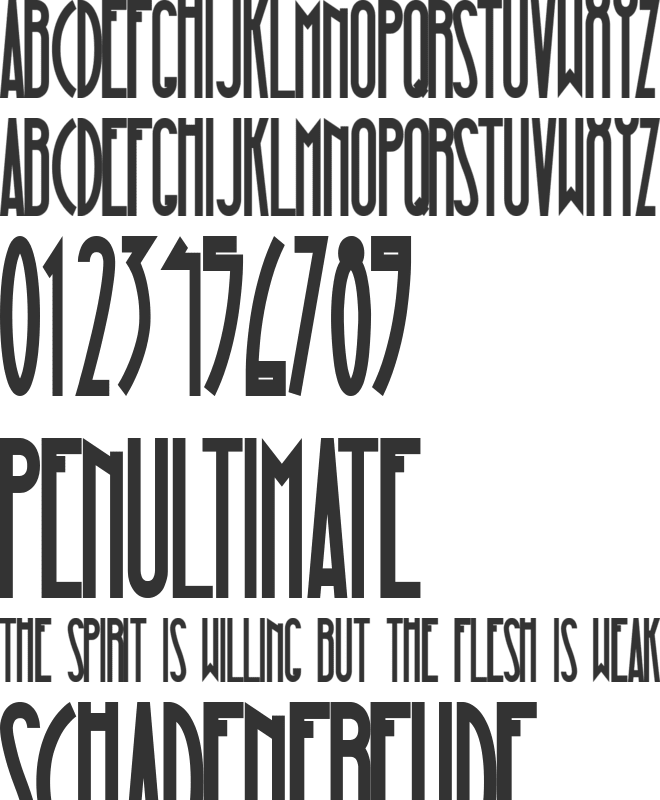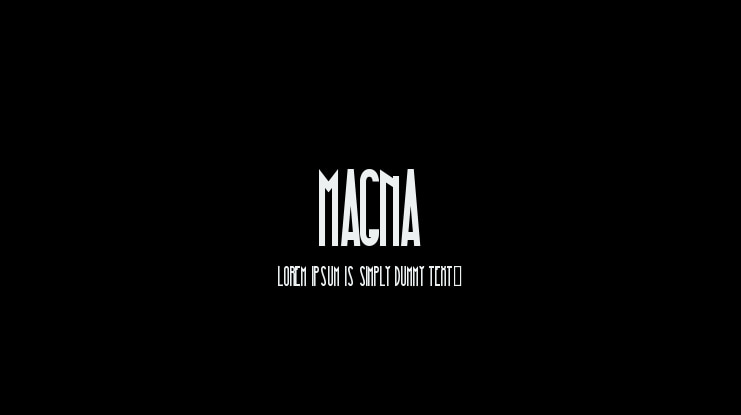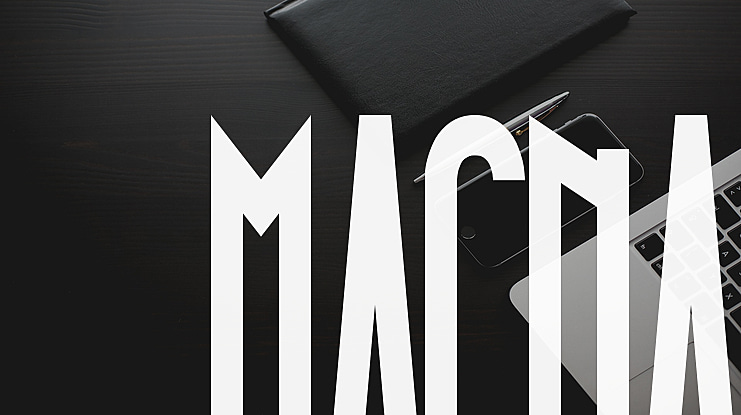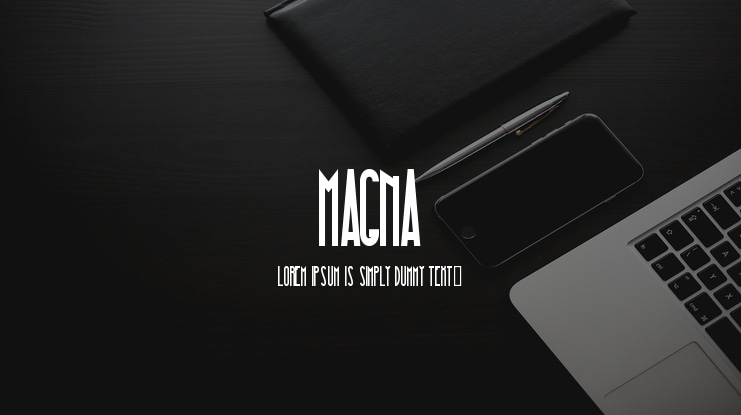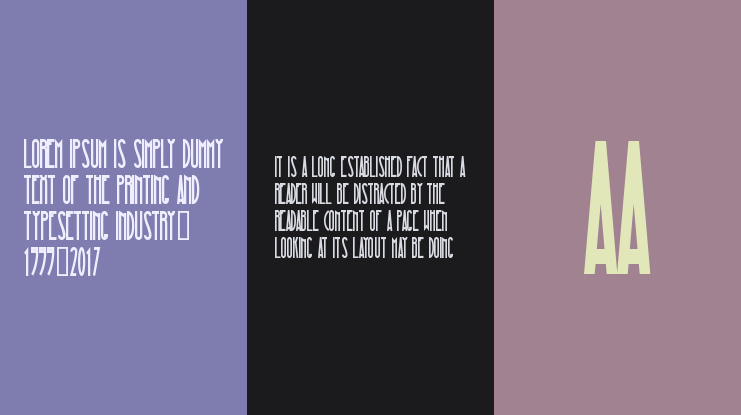
Magna Font Family
MAGNA is a free typeface created in April 2012 and based on a "vintage" style. The typeface contains all main characters (from A to Z - capitals & lowercases are the same for the moment) and numbers (from 0 to 9).
The following pictures show you how are the height and the width of the typeface and some examples on how it could be included on a logo, photo or anything else.
Magna is a full free typeface for designers.